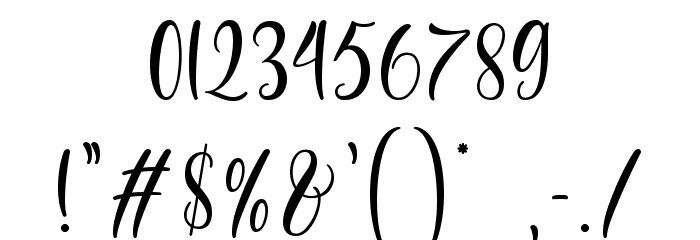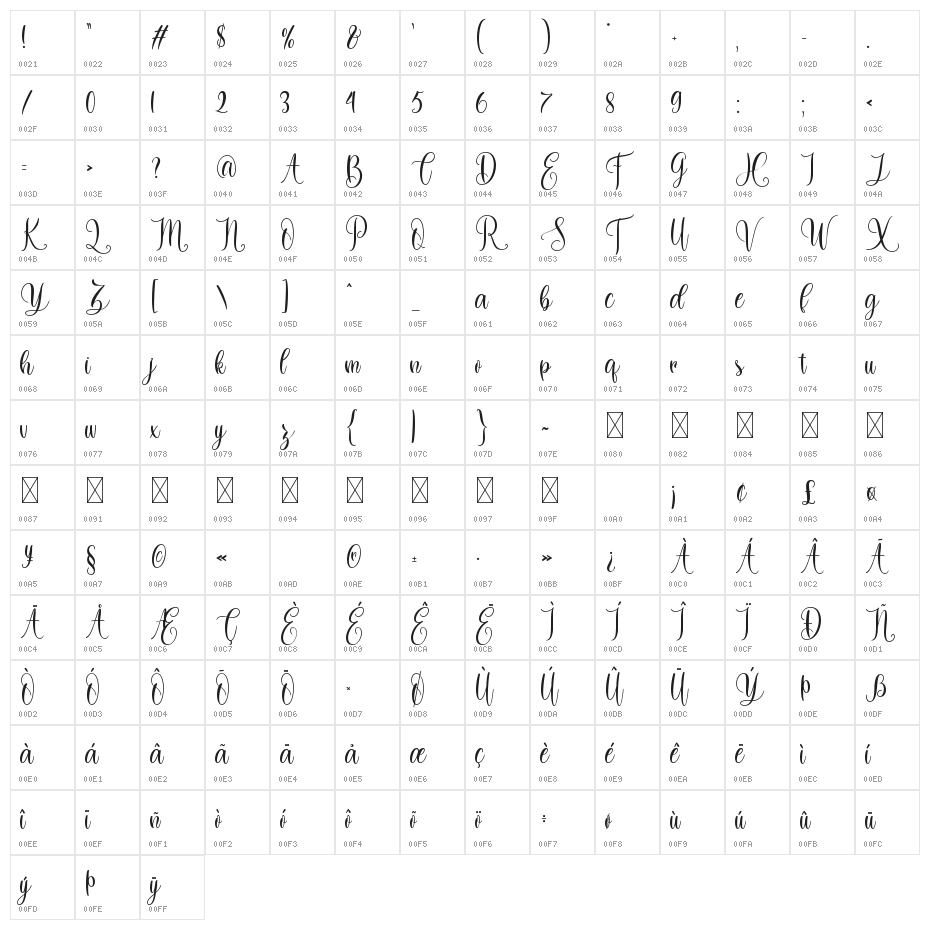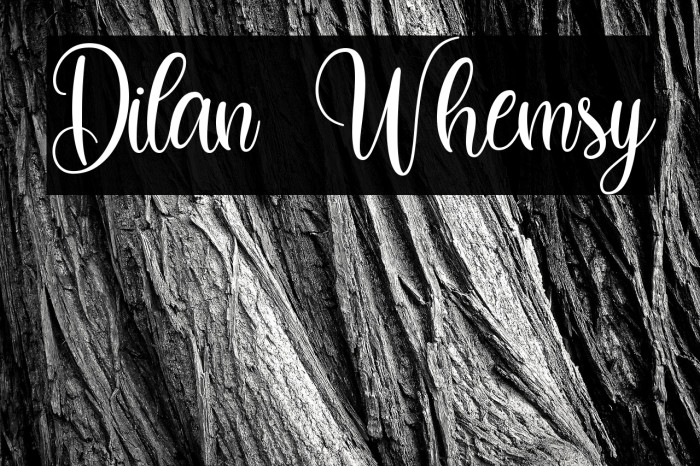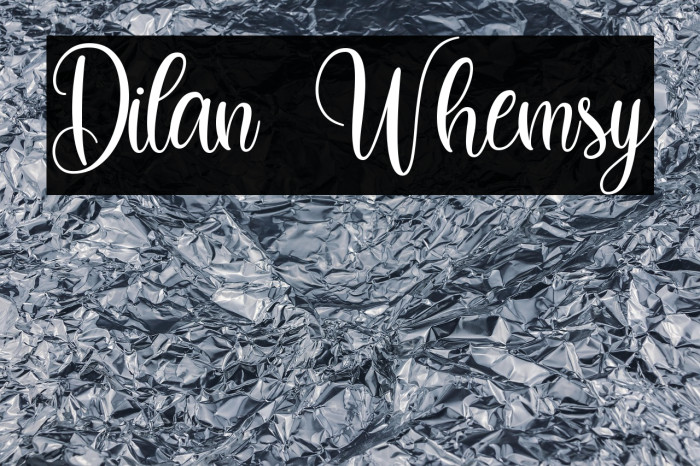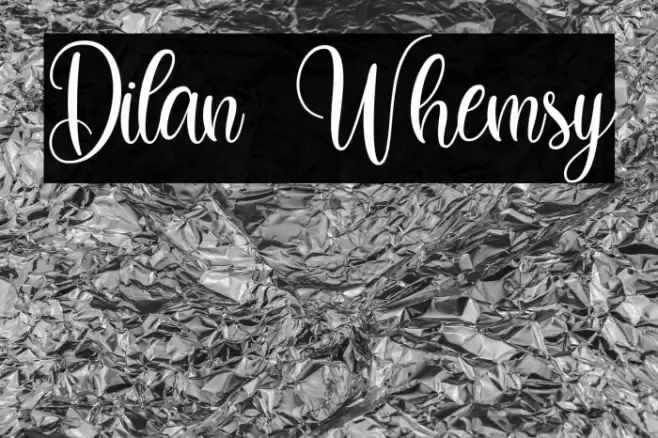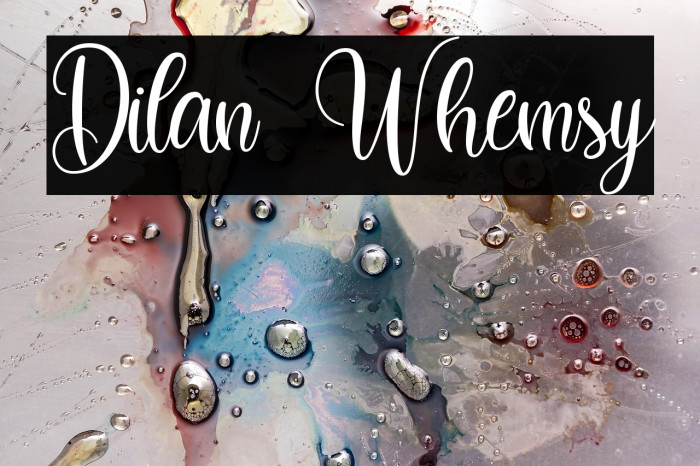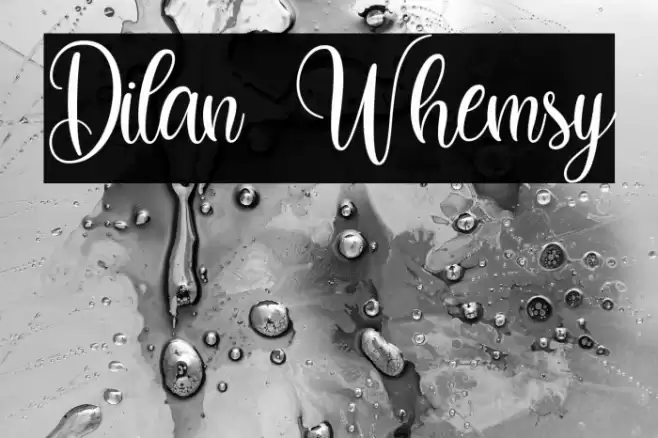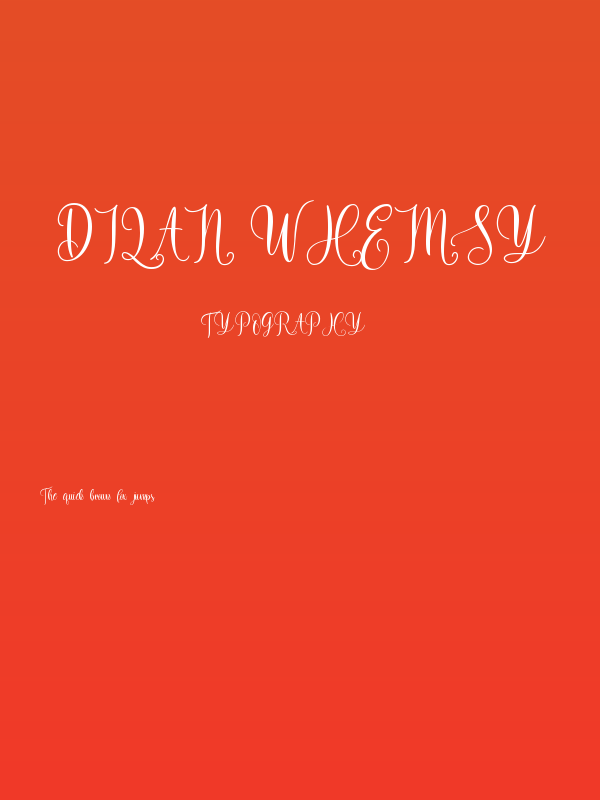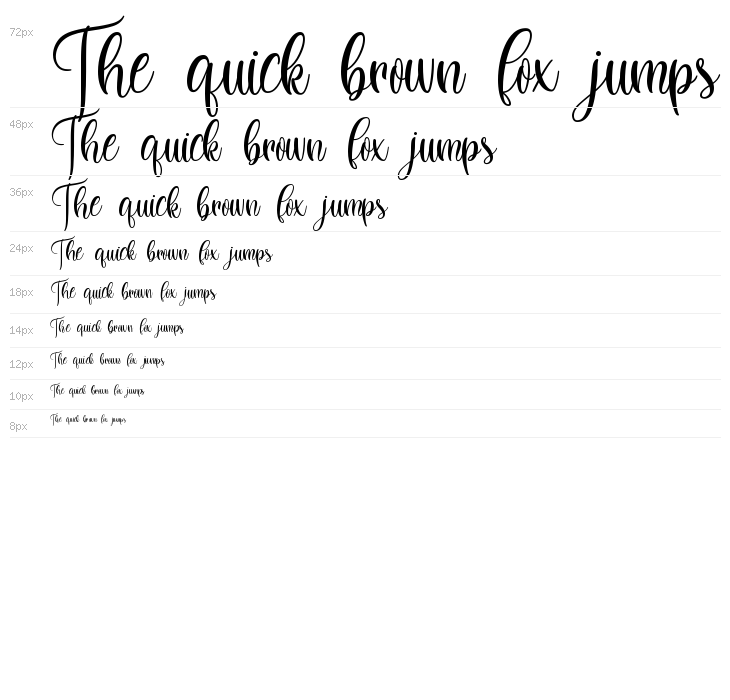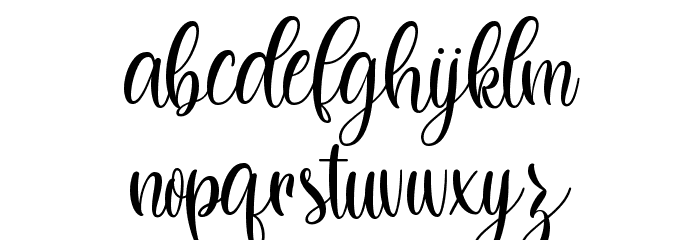
Dilan Whemsy Font
Dilan Whemsy Description
This font exudes a whimsical and elegant charm, characterized by its flowing, cursive style. The letters are interconnected with graceful loops and swirls, giving it a handwritten feel. The uppercase letters are particularly ornate, with exaggerated flourishes that add a touch of sophistication. The lowercase letters maintain a consistent flow, enhancing readability while preserving the decorative nature. Numbers and special characters are designed to match the overall aesthetic, ensuring a cohesive look across all text elements. This font is perfect for projects that require a personal, artistic touch.